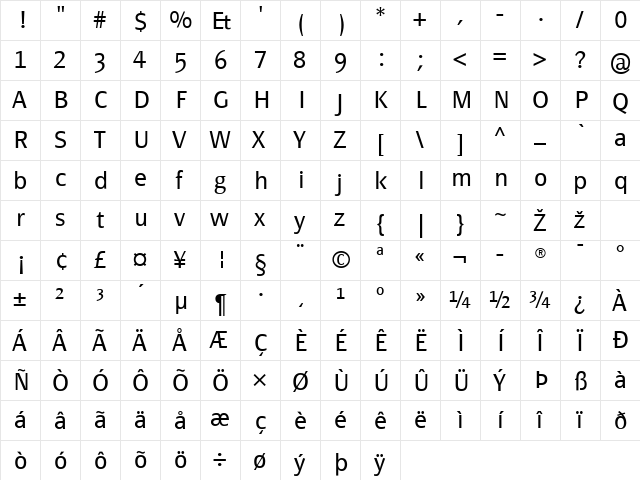
PageSansTF-Light Regular Font Preview
PageSansTF-Light Regular
PageSansTF-Light Regular Font Details
| Foundry | Albert Boton, published by FontShop International for the FontFont Library |
| Designer | Albert Boton |
Design Context for PageSansTF-Light Typeface
PageSansTF-Light offers clean, dependable letterforms without strong stylistic allegiance, making it a practical choice for designers who need flexibility. The delicate stroke weight brings airiness and refinement to layouts.